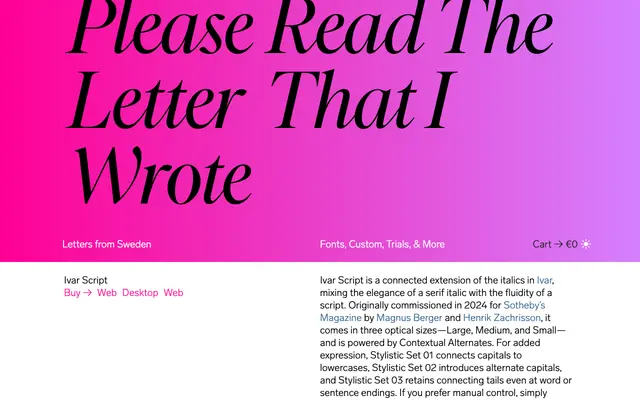
Ivar Script
A connected script grown from the italic of the Ivar typeface, originally commissioned for Sotheby's Magazine and offered in three optical sizes with extensive OpenType control over joining behaviour.
Designed by Göran Söderström and released in 2025, Ivar Script extends the Ivar italic into connected script territory, keeping the elegance of a formal serif italic while introducing the flow of a handwritten hand. Three optical sizes — Large, Medium and Small — are sold as a single package, each tuned for different contexts. Contextual Alternates handle connections automatically, while three Stylistic Sets give typographers manual control over capital-to-lowercase joins, alternate capitals and trailing connecting tails.
A connected, flowing script derived from the italics of the Ivar serif family, blending formal italic structure with the fluidity of handwritten script. Described explicitly as a script with optical sizes and contextual alternates for connected letterforms.